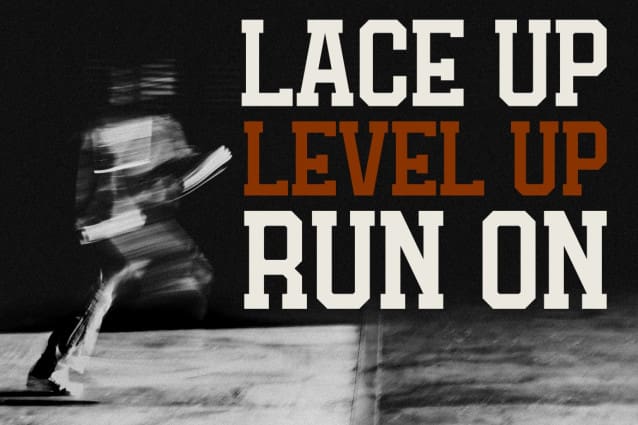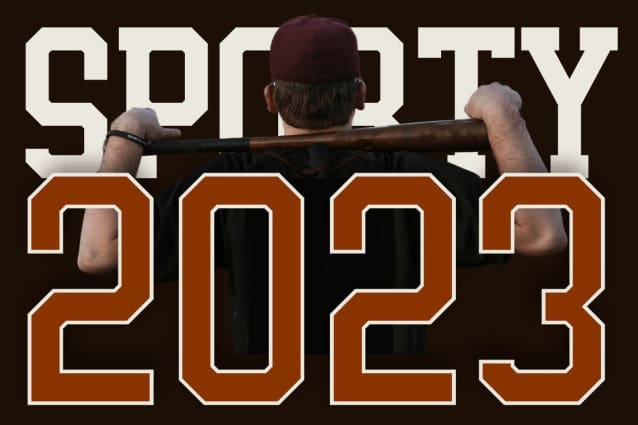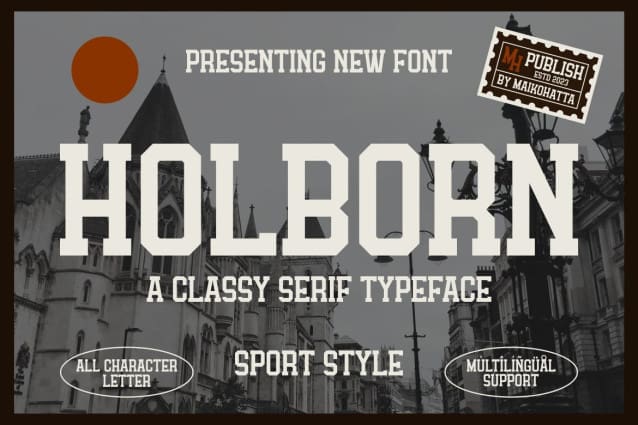
Holborn Font
Holborn Font, this font was designed to reflect the can-do spirit, energy and tenacity often associated with physical activity and sport. This font can be used in the brand identities of sports teams, sports companies and major sporting events. This font design can help create a strong visual appeal, as well as establish an emotional connection with the audience associated with a spirit of competition and achievement.